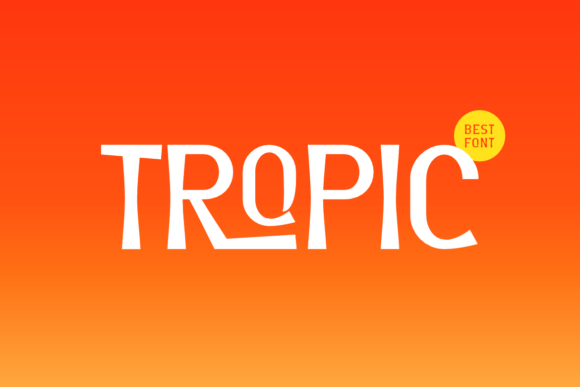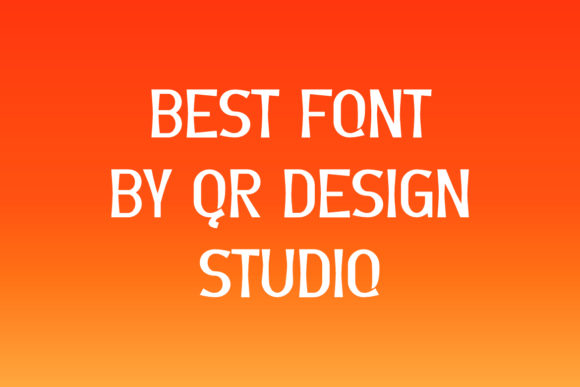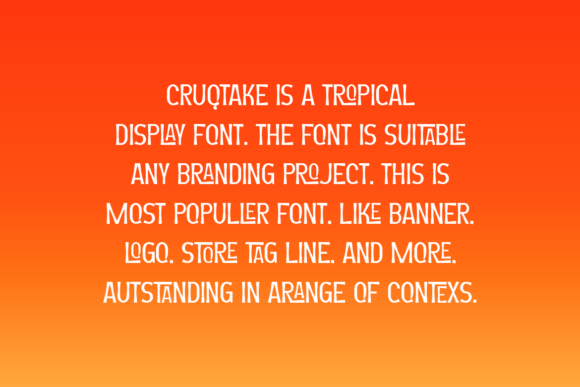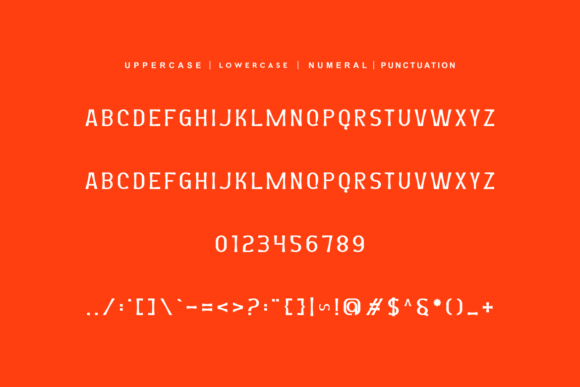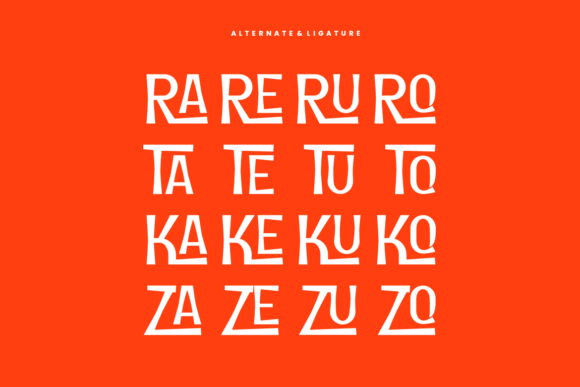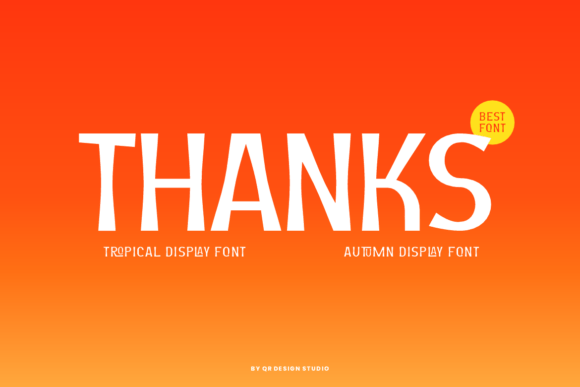
Cruqtake Font: Elevate Your Designs with a Bold and Artistic Tropical Twist
Are you tired of using the same old fonts in your designs? Look no further than Cruqtake, a bold and artistic tropical display font that’s sure to make your work stand out. With its quirky letterforms and geometric flair, Cruqtake brings a vibrant and eye-catching aesthetic to any creative project.
What is Cruqtake Font?
Cruqtake is a carefully crafted display font that blends the best of both worlds – quirky and geometric elements – to create a truly unique and captivating visual experience. Its bold and artistic design makes it perfect for standout headlines, seasonal themes, and attention-grabbing typography.
Key Features of Cruqtake Font
- Bold and Artistic Design: Cruqtake’s bold and artistic design makes it perfect for creating eye-catching headlines and titles that demand attention.
- Tropical Flair: With its tropical twist, Cruqtake brings a fun and adventurous vibe to any design project, making it ideal for branding, posters, and editorial work.
- Quirky Letterforms: Cruqtake’s quirky letterforms add a playful touch to your typography, giving your designs a modern and creative edge.
- Geometric Flair: The font’s geometric elements add a structured and sophisticated feel to your designs, making it perfect for a wide range of creative projects.
Cruqtake is designed with designers and crafters in mind. Whether you’re working on a branding project, creating posters, or designing editorial content, Cruqtake’s dynamic character shapes and modern design edge make it the perfect choice.
Use Cases for Cruqtake Font
- Branding: Use Cruqtake to create bold and eye-catching logos that make your brand stand out.
- Posters: Add a touch of tropical flair to your posters with Cruqtake’s fun and adventurous design.
- Editorial Work: Use Cruqtake to create attention-grabbing headlines and titles that elevate your editorial content.
- Seasonal Themes: Cruqtake’s tropical design makes it perfect for seasonal themes, such as summer or holiday-themed designs.
Why Choose Cruqtake Font?
With so many fonts available, why choose Cruqtake? Here are just a few reasons:
- Unique Design: Cruqtake’s bold and artistic design makes it truly unique and eye-catching.
- Versatility: Cruqtake’s dynamic character shapes and modern design edge make it perfect for a wide range of creative projects.
In conclusion, Cruqtake is a bold and artistic tropical display font that’s perfect for designers and crafters looking to elevate their designs. With its quirky letterforms, geometric flair, and modern design edge, Cruqtake brings a vibrant and eye-catching aesthetic to any creative project. Whether you’re working on branding, posters, editorial work, or seasonal themes, Cruqtake is the perfect choice.